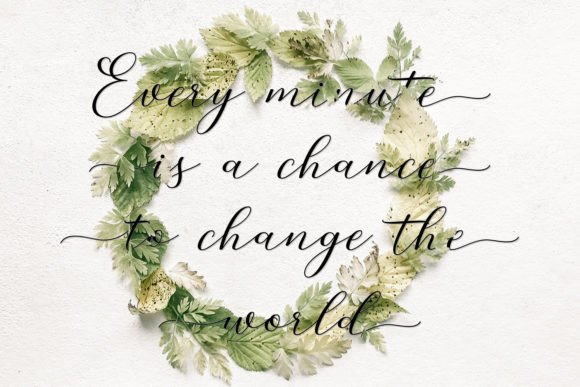
About Lestie Font
Lestie font is a charming and elegant handwritten typeface designed to add a personal and sophisticated touch to your creative projects. Its beautifully crafted letters make it ideal for wedding invitations, thank you cards, quotes, greeting cards, logos, business cards, and any other design that benefits from a handwritten style.
Elegant and Timeless Design
The beauty of Lestie lies in its balanced and graceful letterforms. Each character is carefully designed to evoke a sense of warmth and refinement. This font’s timeless elegance ensures that it complements both traditional and modern designs, making it a versatile choice for a wide range of projects.
Perfect for Special Occasions
Lestiefont shines particularly well in projects that require a heartfelt and personal touch. Wedding invitations and thank you cards gain a romantic and intimate feel when designed with Lestie. Additionally, it works wonderfully for quotes and greeting cards, where the handwritten style enhances the emotional connection.
Versatile Applications
Beyond weddings and cards, Lestie is suitable for business branding, logos, and business cards. Its elegant appearance helps convey professionalism while maintaining a friendly and approachable vibe. The font’s versatility means you can confidently use it across various creative tasks without losing its charm.
PUA Encoded for Creative Freedom
Lestiefont comes PUA encoded, allowing you easy access to all its glyphs and ligatures. This feature enables you to customize your designs with unique stylistic elements, adding flair and sophistication effortlessly. Whether you want to use swashes, alternate characters, or decorative flourishes, Lestie gives you the tools to enhance your typography.
Why Choose Lestie Font?
Choosing Lestie means selecting a font that combines elegance with charm. It offers a perfect handwritten style that is both versatile and beautiful. If you want your designs to stand out with a personal touch that looks professional and refined, Lestie is an excellent addition to your font library.
Elevate Your Projects
Use Lestiefont to bring a graceful, handwritten look to your work. Its refined style ensures that your invitations, branding materials, and cards will leave a lasting impression. This font is a great choice for anyone looking to add warmth and sophistication to their creative projects.